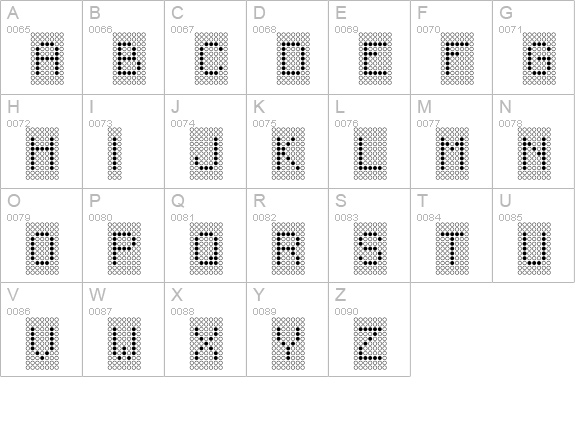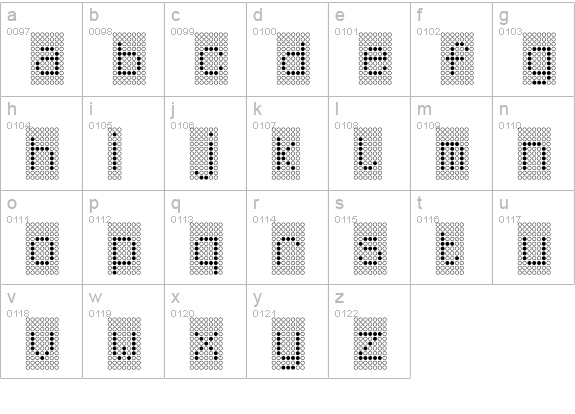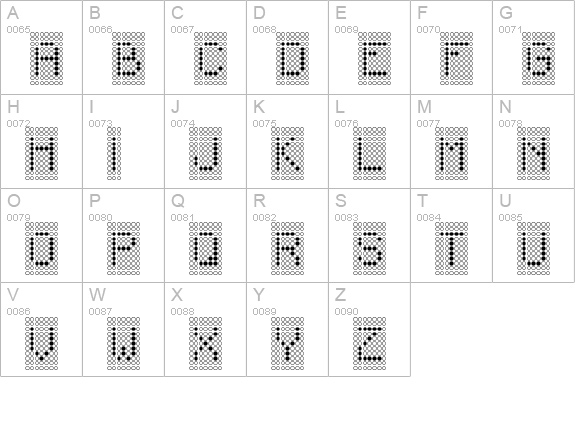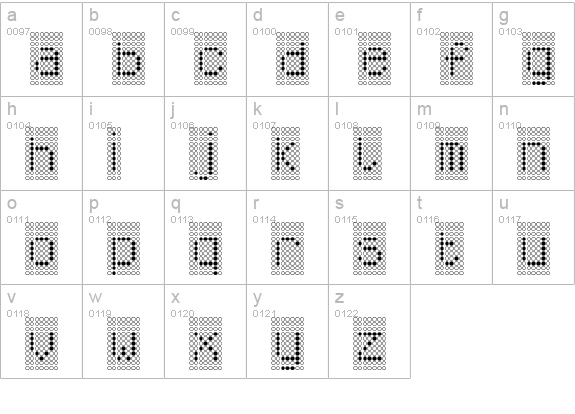
Astalamet Font Details
Astalamet font is a stunning and versatile typeface that exudes elegance and sophistication. With its sleek lines and modern aesthetic, this font is perfect for a wide range of design projects, from branding to editorial design. Its clean and minimalist design makes it easy to read while also adding a touch of style to any layout. What sets Astalamet font apart is that it is completely free to download at FontsMarket.com. This means that you can access this high-quality font without any cost, making it a fantastic choice for designers looking to elevate their projects without breaking the bank. Whether you're working on a website, poster, logo, or any other design project, Astalamet font is sure to make a statement and leave a lasting impression on your audience. Download it today and unleash your creativity with this beautiful and versatile typeface.